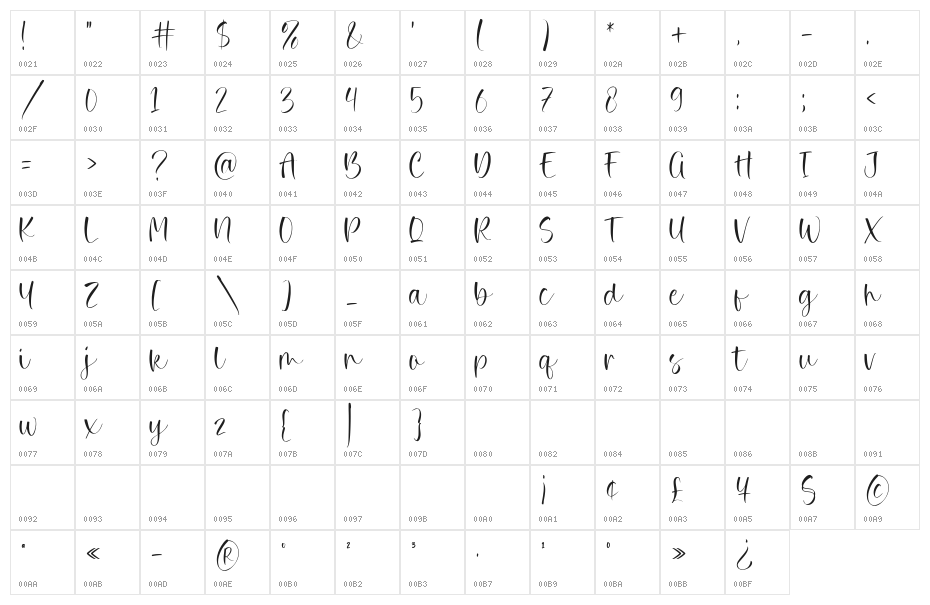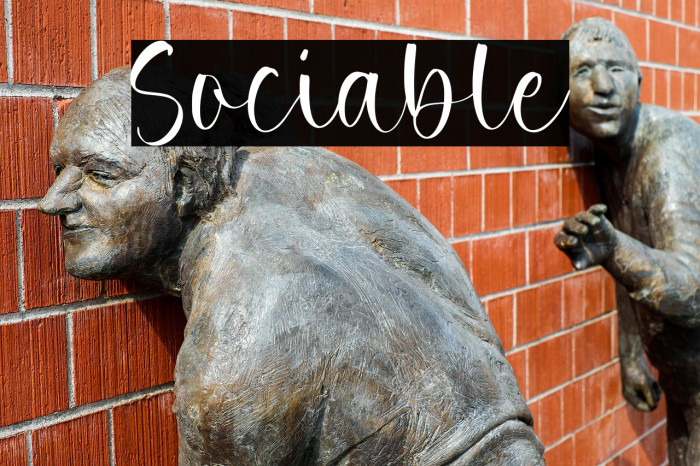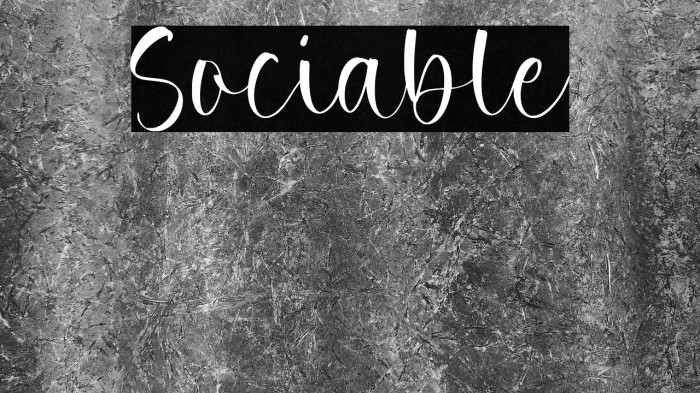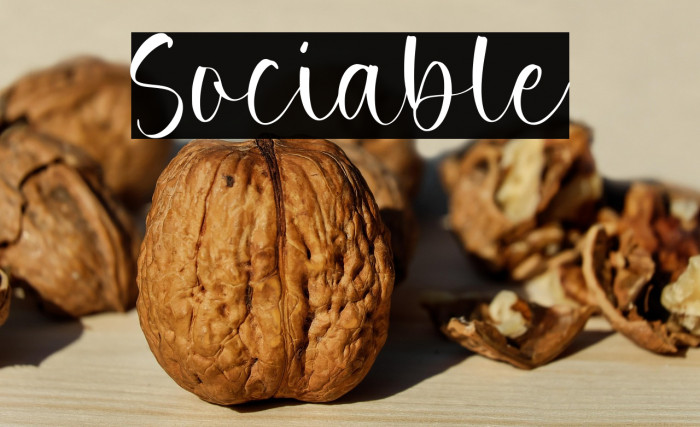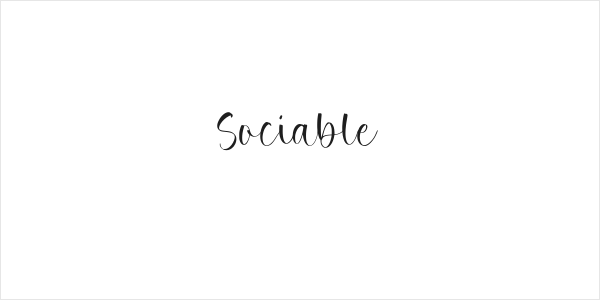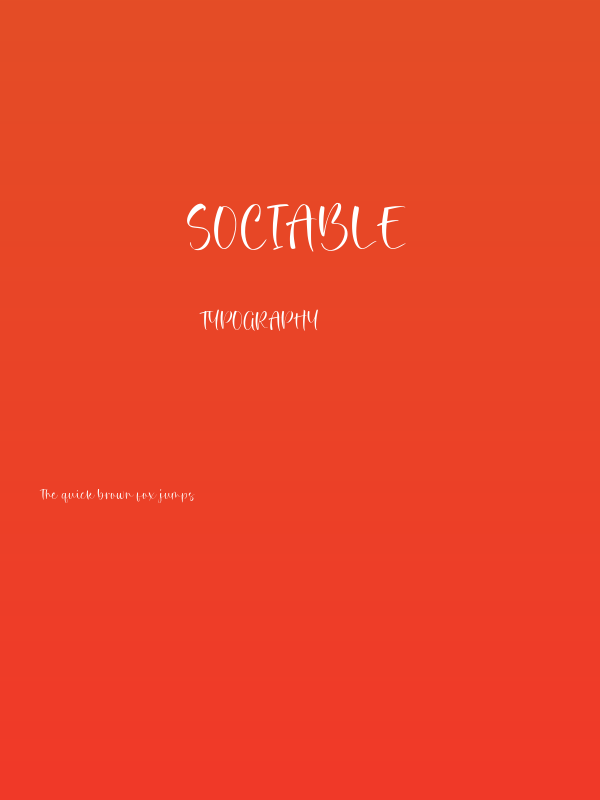
Sociable Font
Sociable Description
This font features a lively and flowing handwritten style, characterized by its smooth curves and elegant strokes. The uppercase letters are bold and confident, while the lowercase letters maintain a consistent fluidity, adding a personal touch to any text. The numerals are clear and distinct, complementing the overall aesthetic. Special characters are creatively integrated, enhancing the font's versatility. Its playful yet sophisticated appearance makes it suitable for a variety of design projects.
| Use Case | Logos, Headlines, Decorative text |
| Proposed Projects | Ideal for invitations, greeting cards, branding, and social media graphics. |